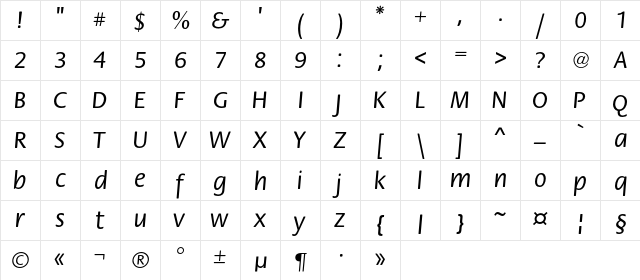
FiestaC Regular
Design Context for FiestaC Typeface
FiestaC takes a measured approach to typography — its balanced proportions and neutral character make it a reliable workhorse for both digital and print work.